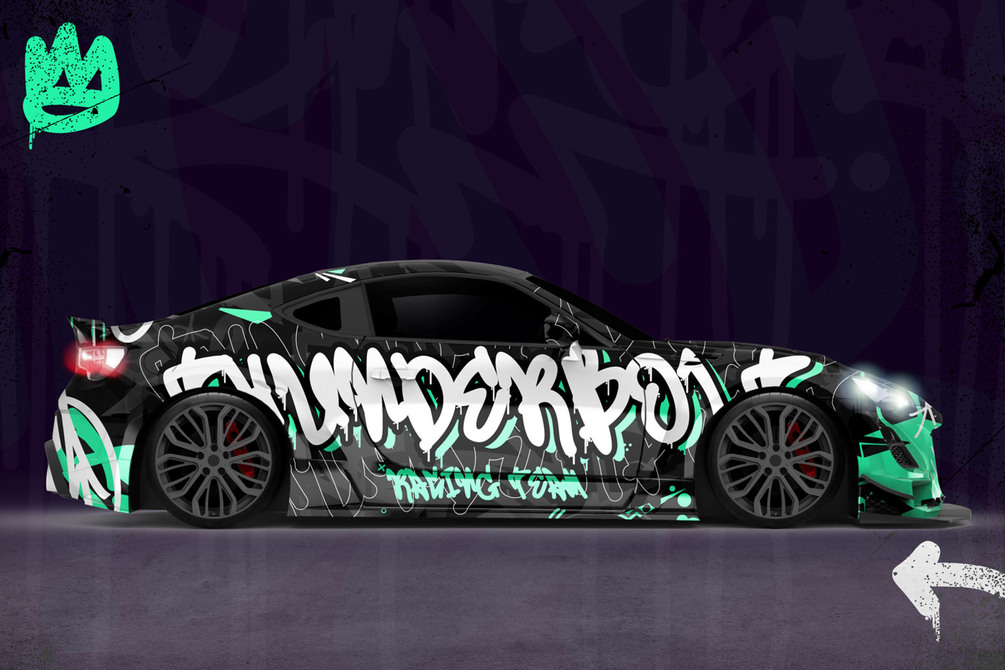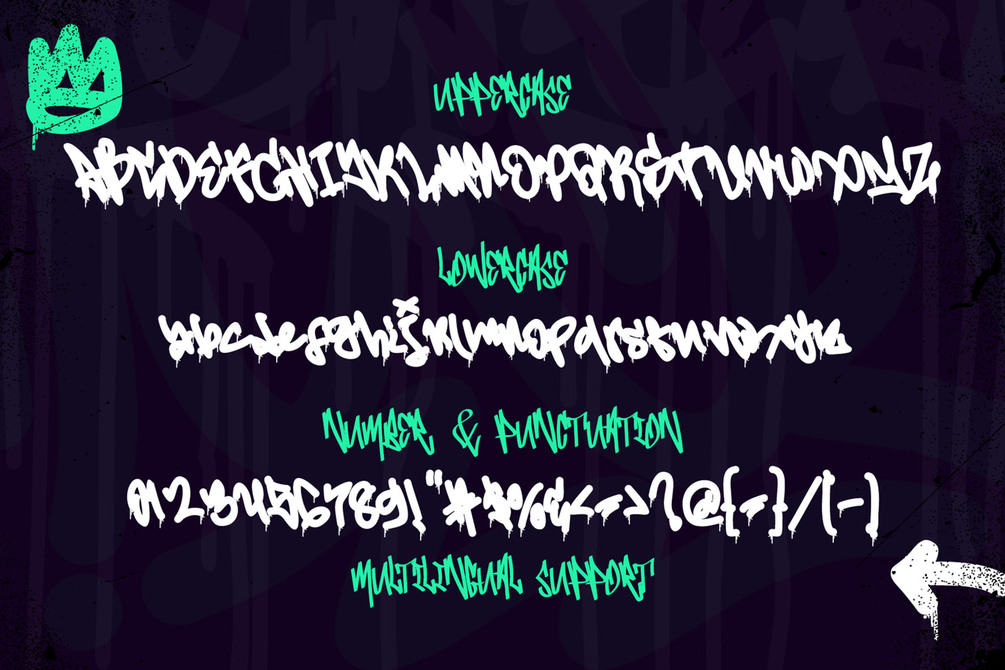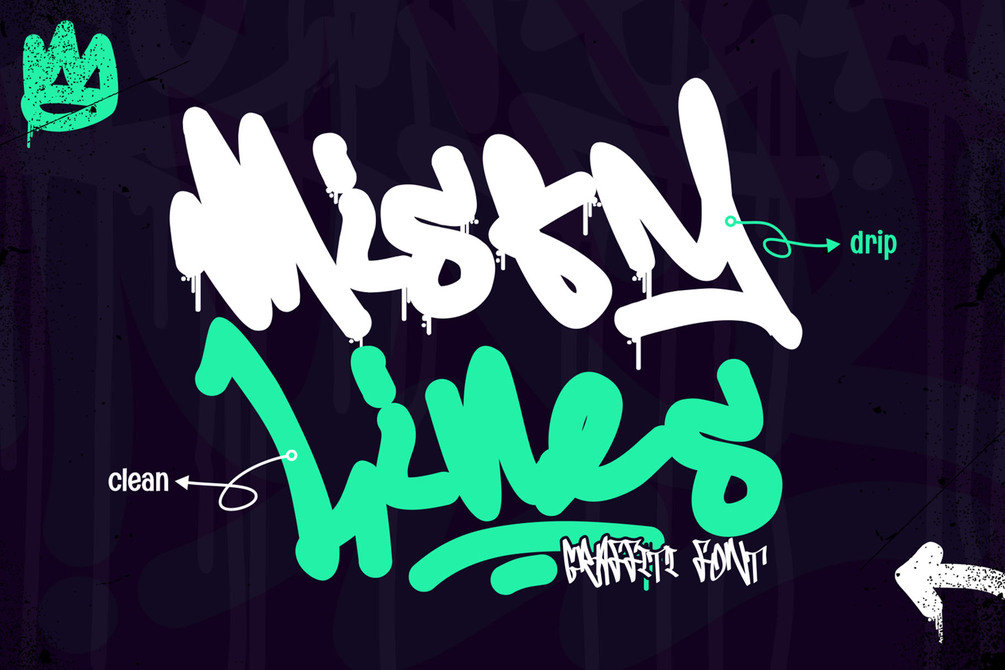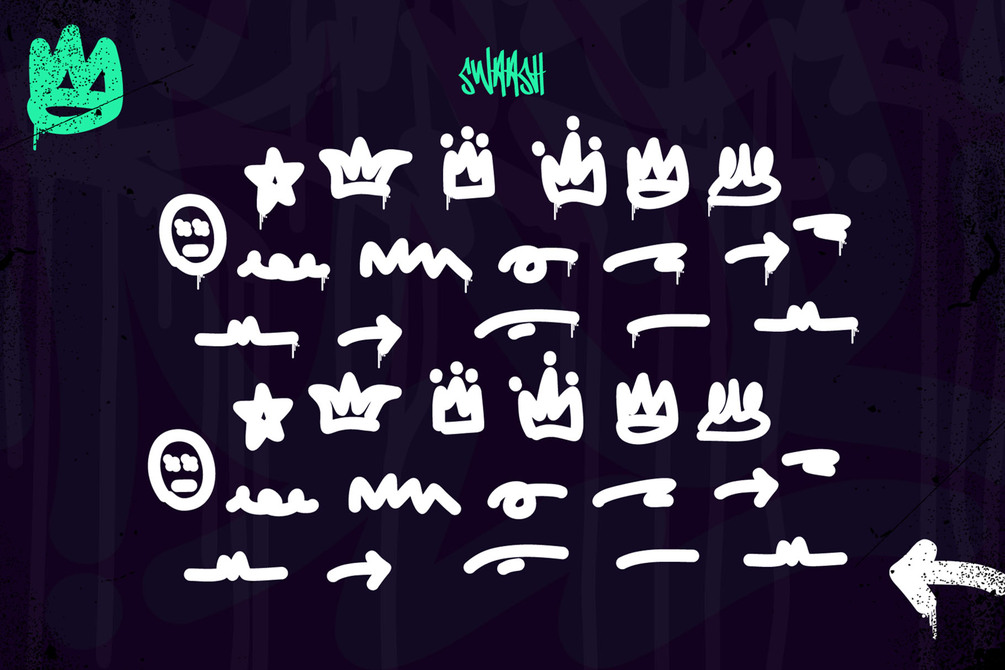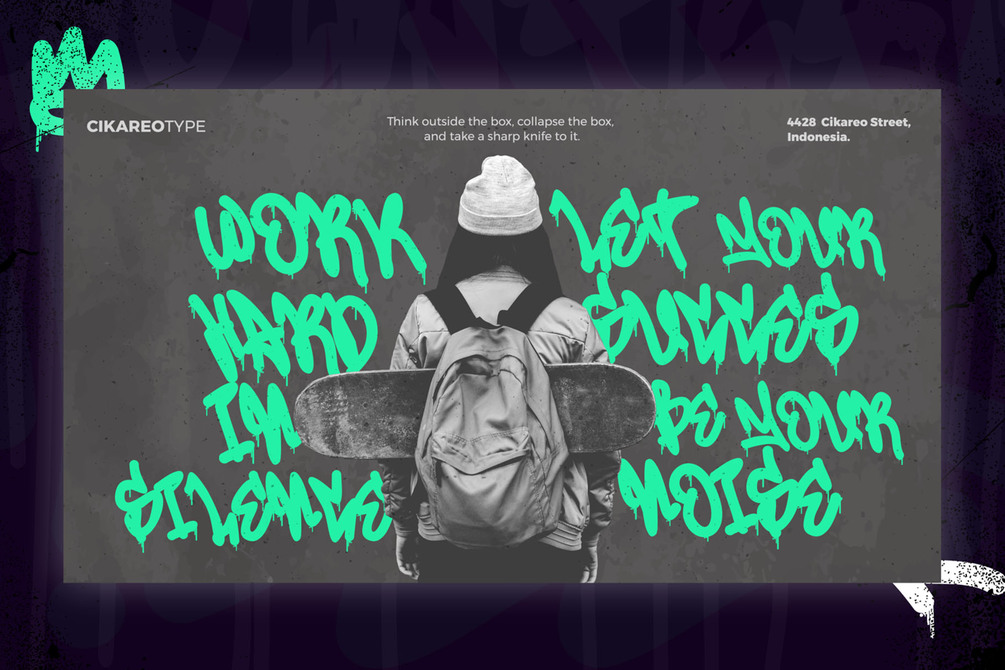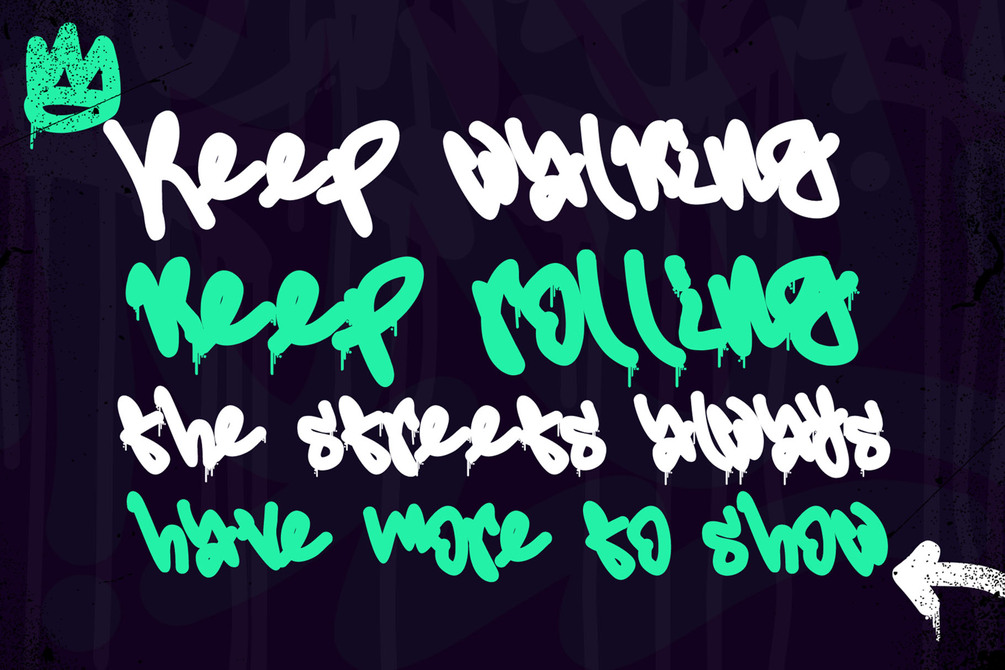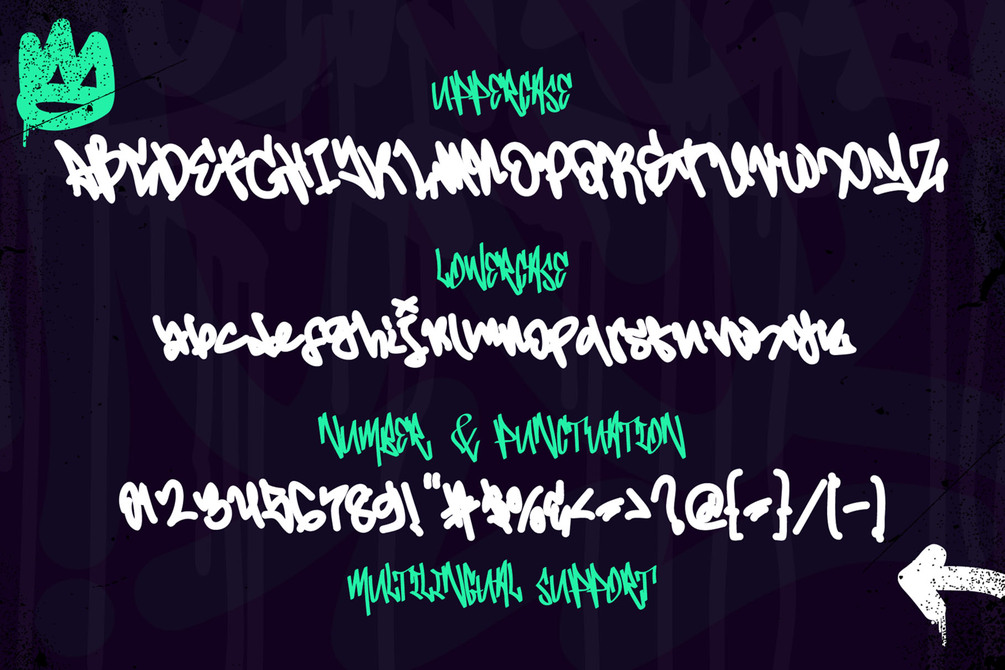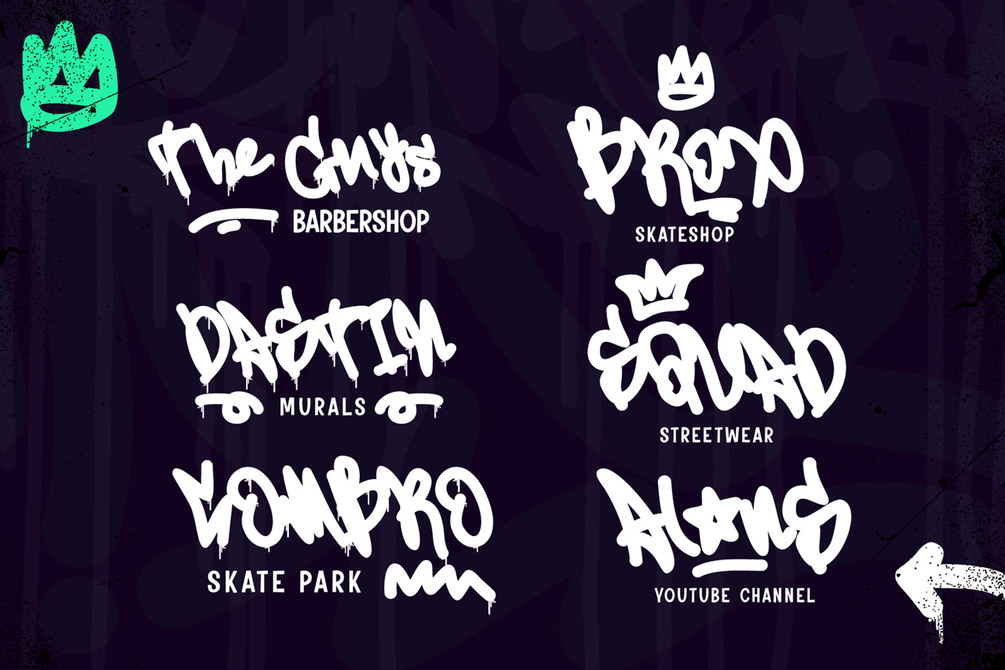
Misty Lines is a Natural and expressive dripping monoline graffiti font featuring stylish swashes that enhance its urban and street-style appeal. With its fluid strokes and dripping ink effect, this font captures the raw energy of graffiti culture while maintaining a sleek and modern monoline structure.
Perfect for streetwear branding, hip-hop posters, album covers, skate designs, stickers, murals, and urban-themed projects, Misty Lines adds a rebellious and artistic edge to any design. Its smooth yet edgy drips and swashes make it a standout choice for creating bold, dynamic, and eye-catching visuals that embody the spirit of street art.
• Versatile for branding, headline, or printing product